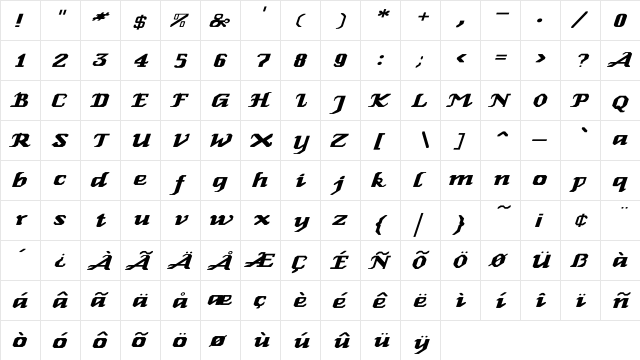
GenoaItalic Wd Regular
Design Context for GenoaItalic Wd Typeface
GenoaItalic Wd offers clean, dependable letterforms without strong stylistic allegiance, making it a practical choice for designers who need flexibility. The slanted form adds forward momentum and visual energy.
Pro Tip: Try GenoaItalic Wd for annotation and caption copy alongside an upright companion — the contrast in angle creates a dynamic but ordered typographic system.